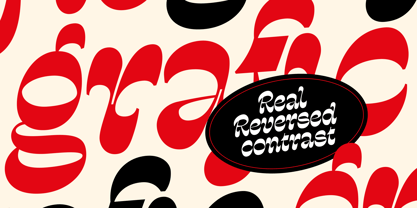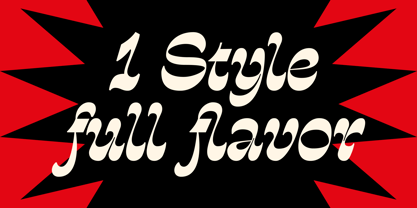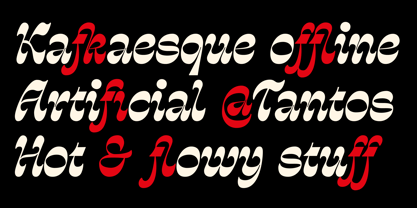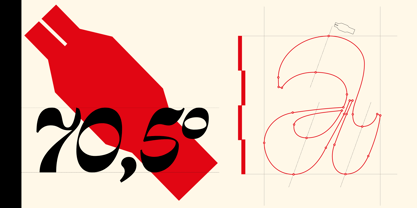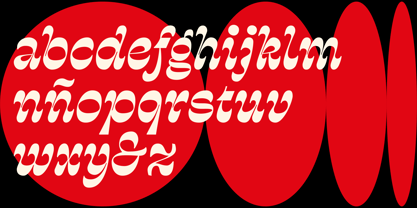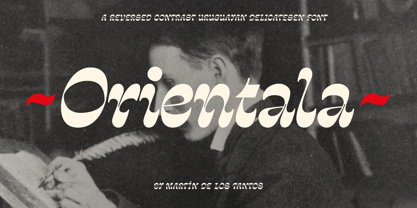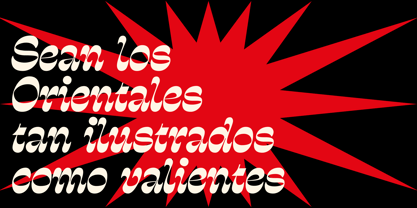
Orientala
Orientala revives Edward Johnston’s foundational calligraphy with a reversed contrast twist—thick horizontals and thin verticals—creating a surreal yet balanced tension. It merges humanist warmth with avant-garde disruption.
Why It Stands Out:
• Defiant Elegance: Subverts traditional stroke logic while retaining readability.
• Versatile Mood: Works for both poetic subtlety and bold statements.
Best Uses:
• Editorial headlines (literary journals, cultural critiques)
• Provocative branding (art books, indie music packaging)
• Short text with impact (posters, quotes)
Pairings:
• Neutral sans-serifs (like Johnston’s own Underground) for contrast
• Monospaced fonts for rhythmic tension
Technical Notes:
• Styles: Regular, Reversed Contrast variant
• Supports Latin script with quirky ligatures (see “abcdefinihim” sample)
Backstory:
Born from a desire to warp tradition, Orientala nods to Johnston’s legacy while embracing the uncanny—like a calligraphic glitch in time.